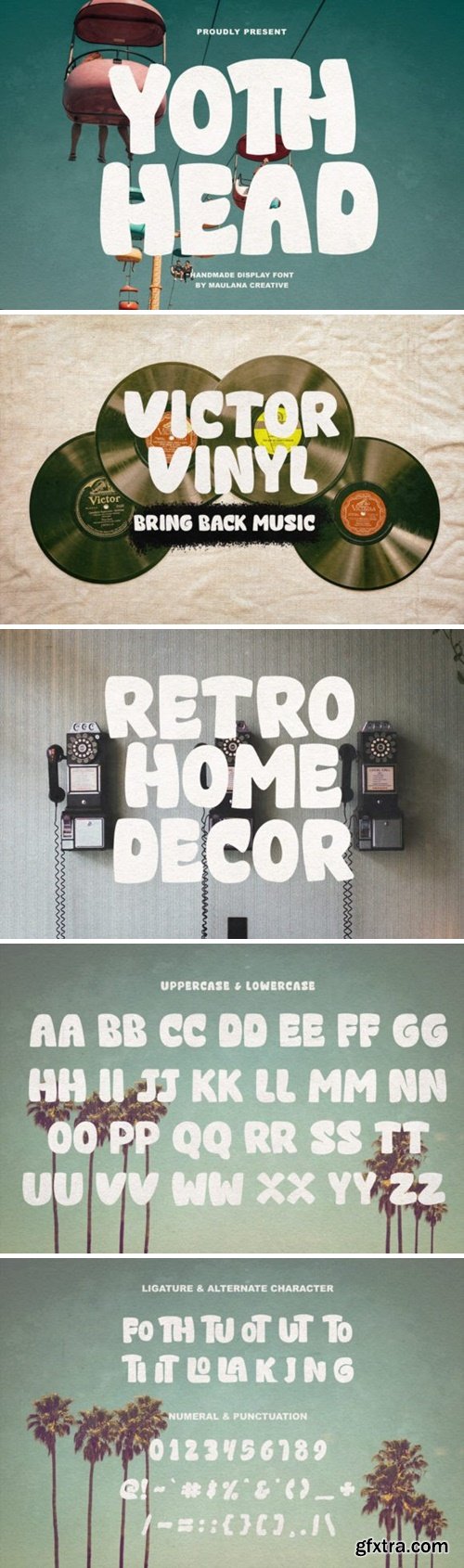
Yoth Head is a handmade display font that brings a cool and artistic vibe to your designs. With its bold strokes and handcrafted feel, this font adds a touch of personality to any project. Perfect for headlines, posters, or anything that needs a bold statement, Yoth Head stands out with its unique handmade charm. Make your text pop and showcase your creativity effortlessly with this eye-catching display font.